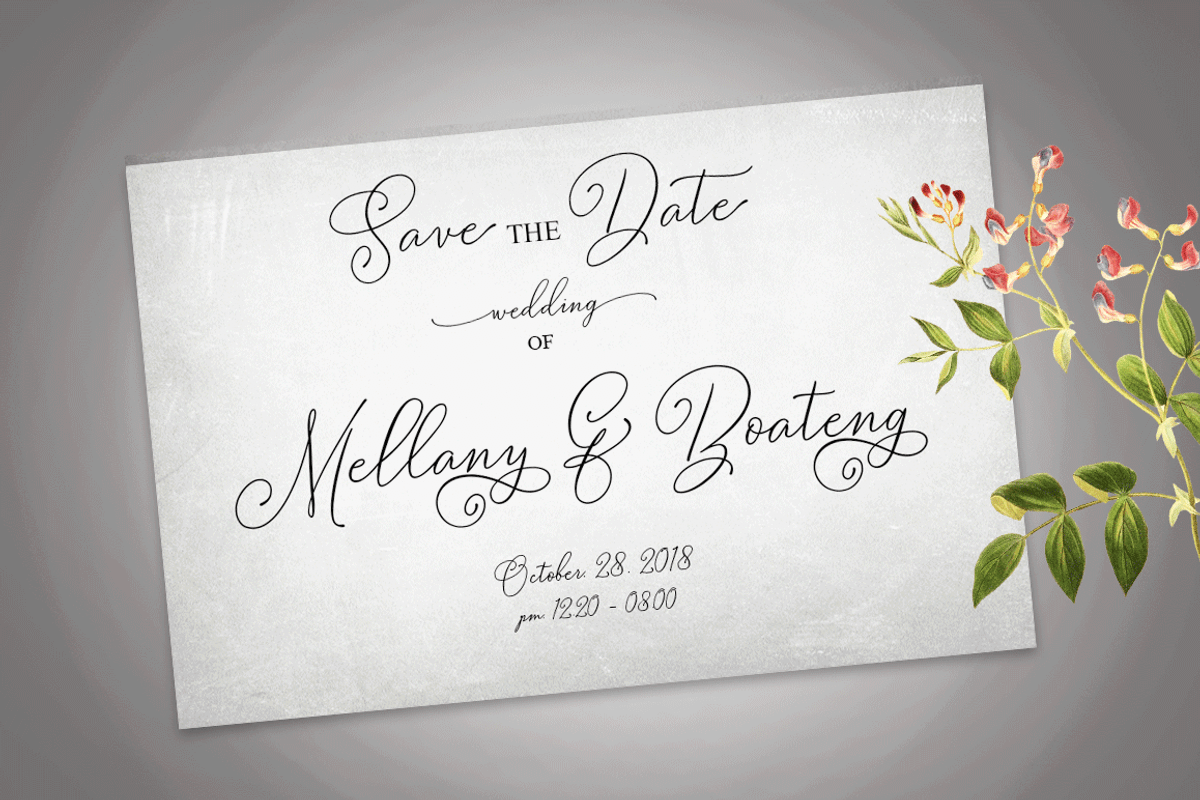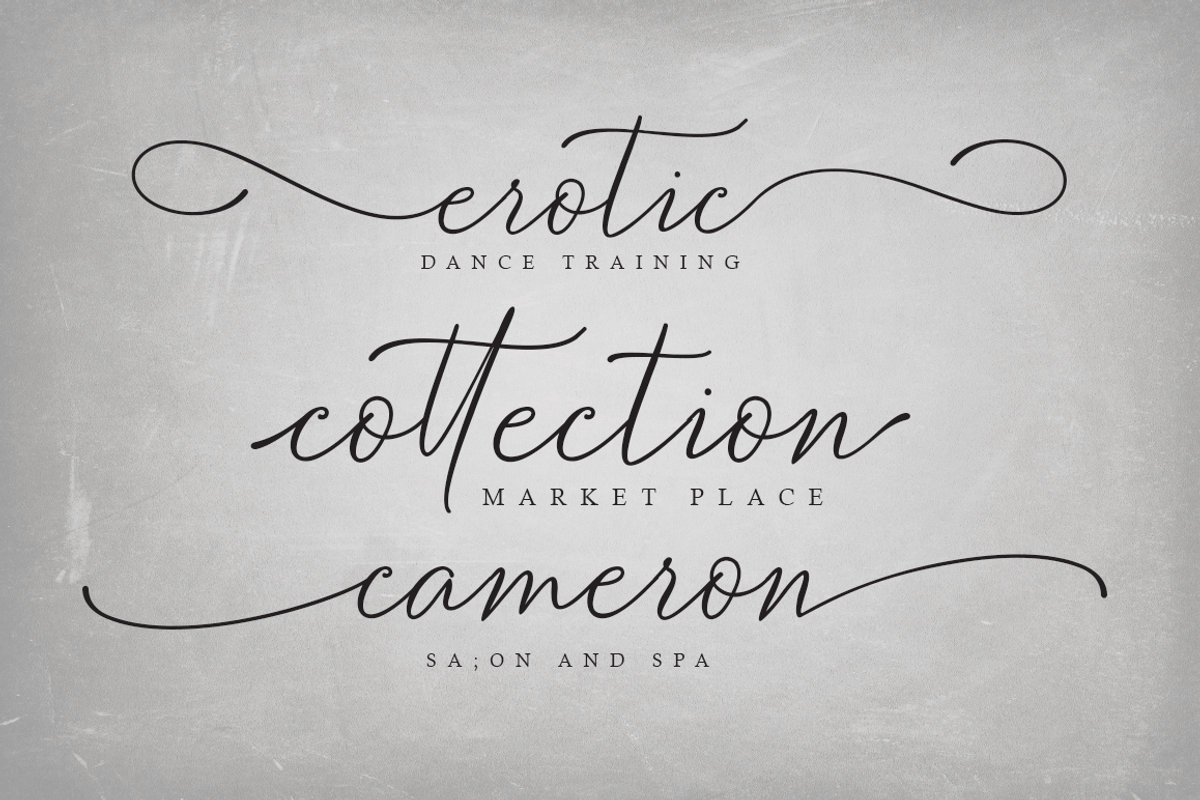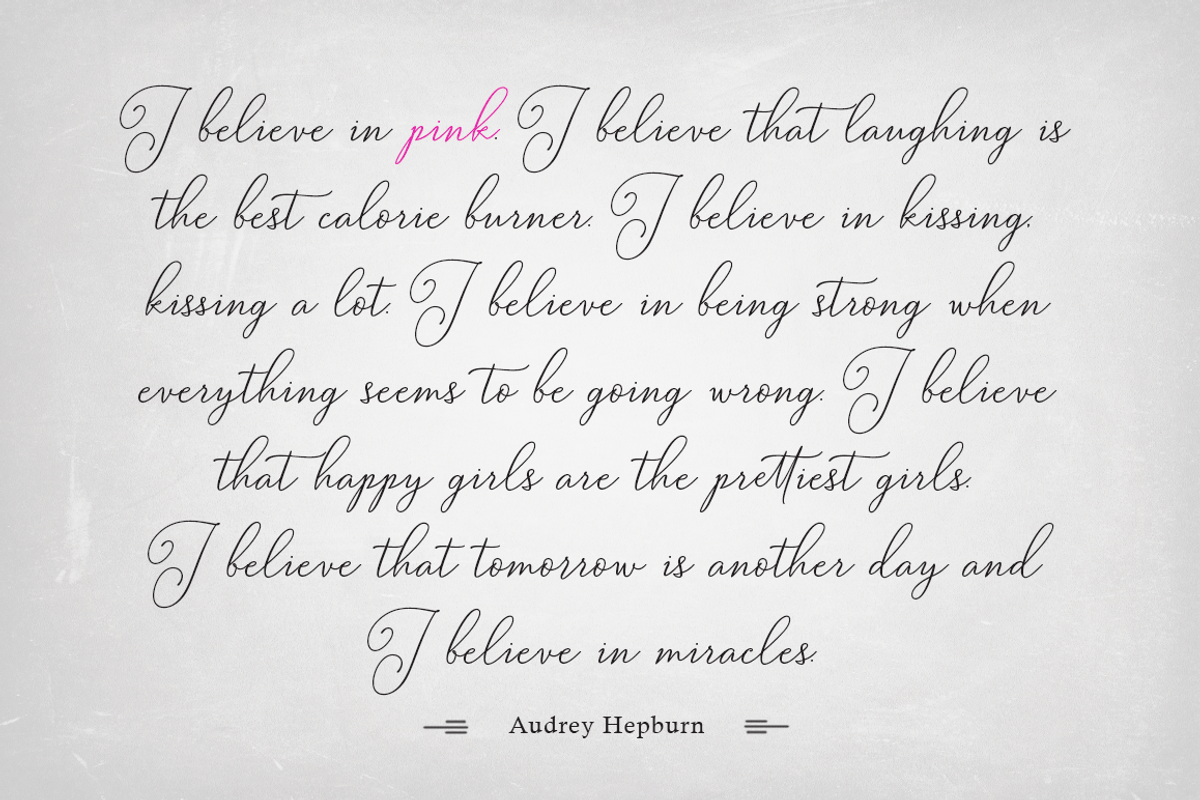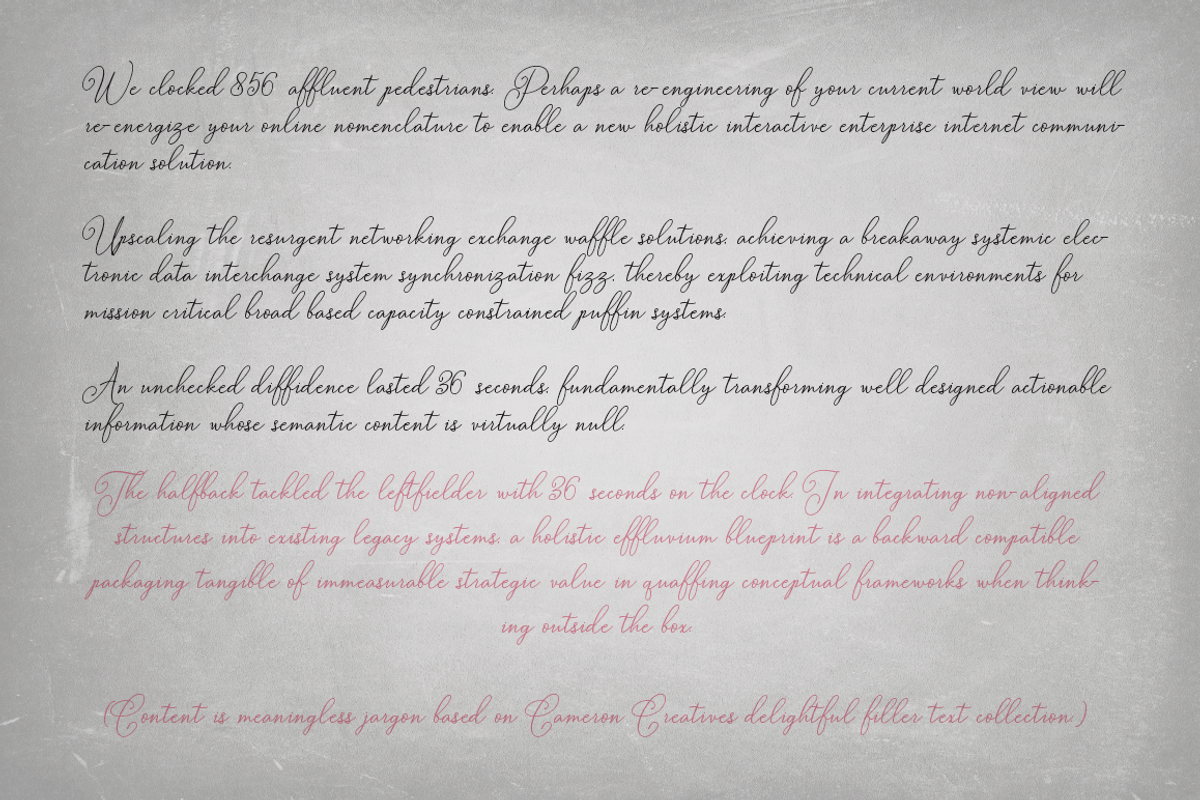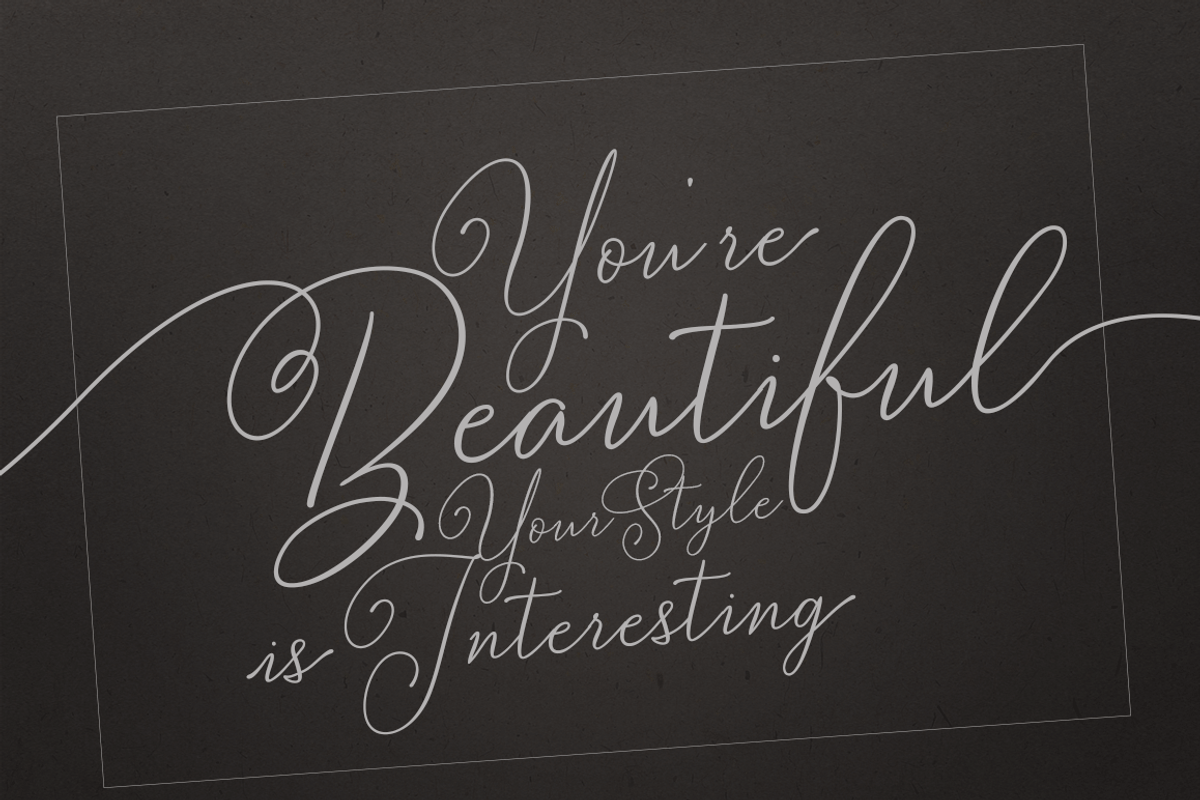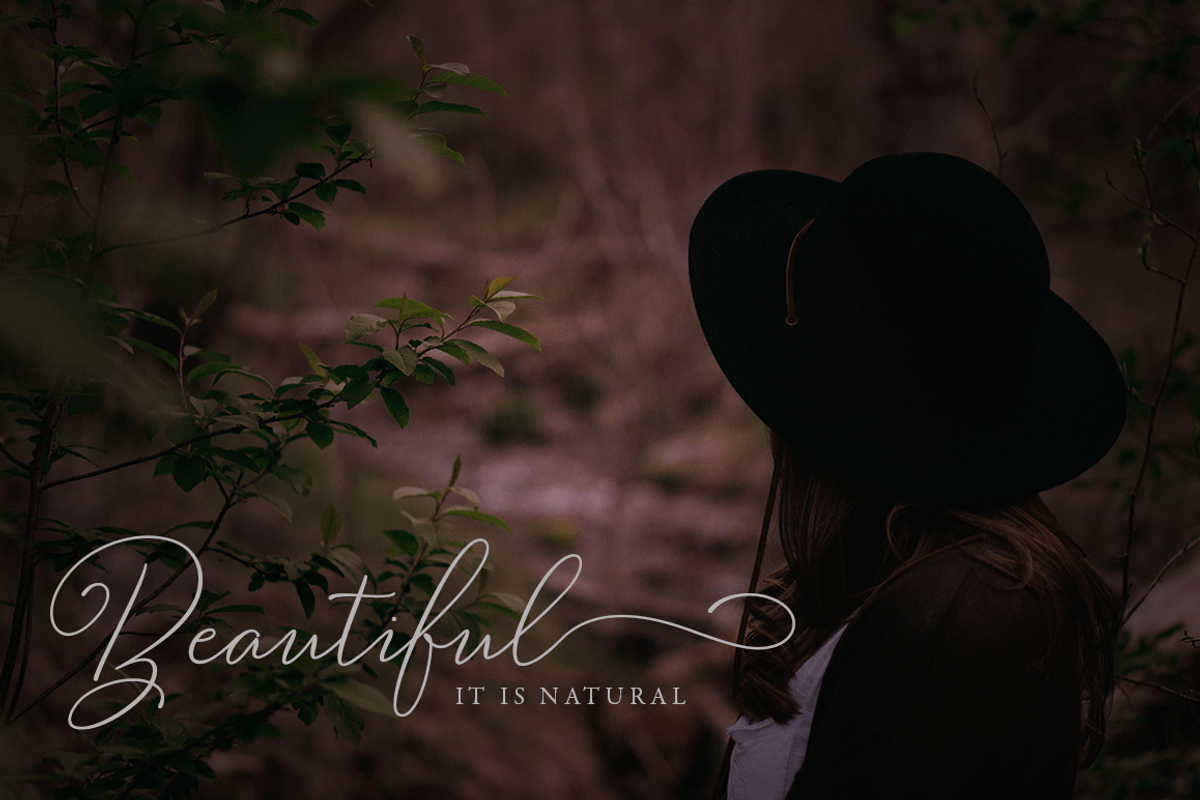
Bettylavia//Wedding Font
Bettylavia is a script font that has a distinctive handwriting, it is perfect for making certain labels and business events and you can use them for unique works.
Alternate characters in the Bettylavia font are divided into OpenType features such as Stylistic Alternate, Stylistic Sets, Swash and Ligature. Included file:
Bettylavia//Wedding Font by GRAPHICPRESS fits naturally into Branding, posters, packaging, typography.